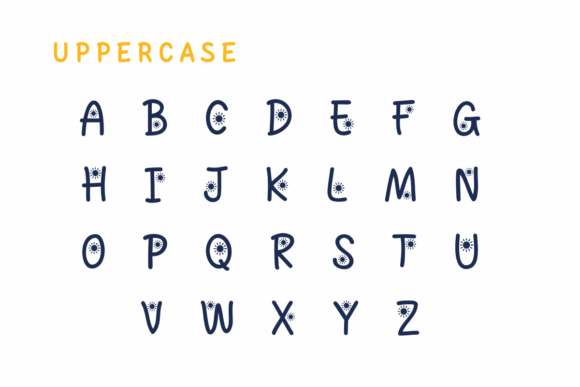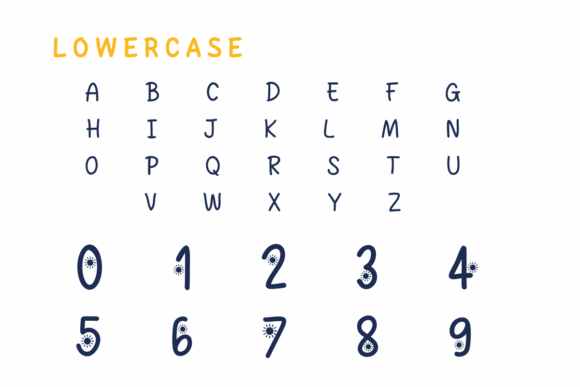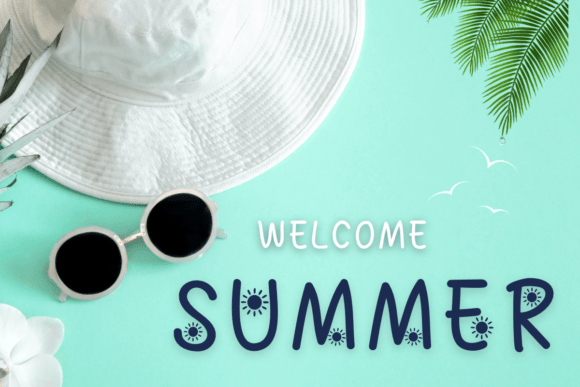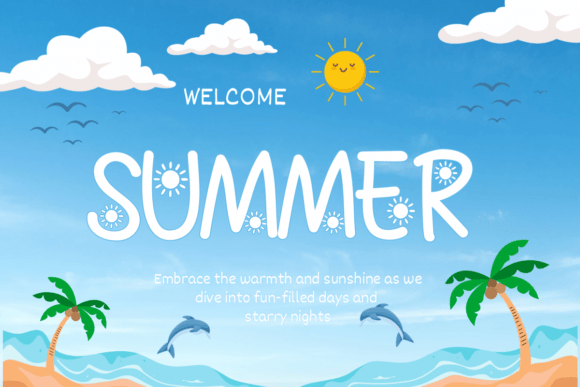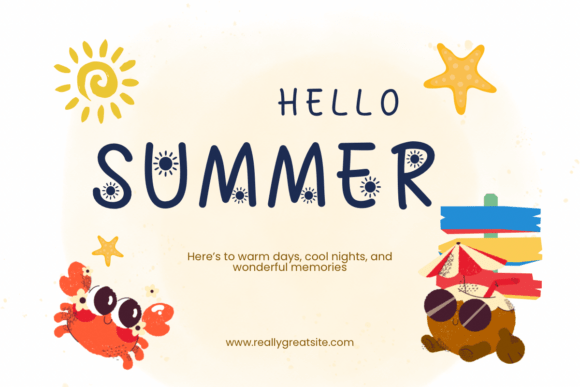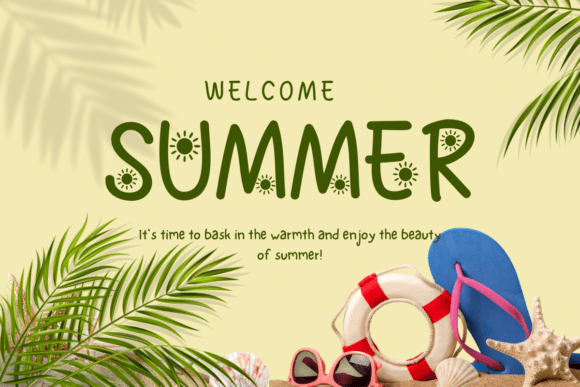
The Sunshine in Fonts: Discovering Cute Sun
I’ll never forget the time I was working on a project for a children’s birthday party invitation. I had the design all planned out, but something was missing – the perfect font. I scrolled through my font library, but nothing seemed quite right. That’s when I stumbled upon Cute Sun, a delightful decorative font that instantly brightened up my design. In this article, I’ll share my experience with Cute Sun, its features, and how to make the most of it in your designs.
An Honest Review of Cute Sun
Cute Sun is a charming font that can add a touch of warmth and personality to your designs. Here’s what I love about it:
- ✨ Unique and playful design, perfect for creative projects
- ✅ Easy to read, even in smaller sizes
- 💕 Adorable and cheerful, great for designs that need a friendly touch
- 🎨 Versatile, suitable for various design applications
However, there are a few quirks to consider:
- 🤔 Limited use in formal or professional designs, as it’s quite playful
- ⚠️ May not be the best choice for very long texts, as it can be a bit distracting
- Experiment with OpenType features, such as ligatures and stylistic alternates, to add more personality to your text
The Designer Inspiration Behind Cute Sun
Cute Sun was designed with the intention of creating a font that’s both playful and friendly. The designer wanted to capture the warmth and energy of the sun in a digital format. The result is a font that’s perfect for creative projects, such as greeting cards, invitations, and social media posts.
| Font Name | Cute Sun Font |
| Author | PraewDesigns |
| What type of designs is Cute Sun best suited for? | Cute Sun is perfect for creative projects, such as greeting cards, invitations, social media posts, and more. |